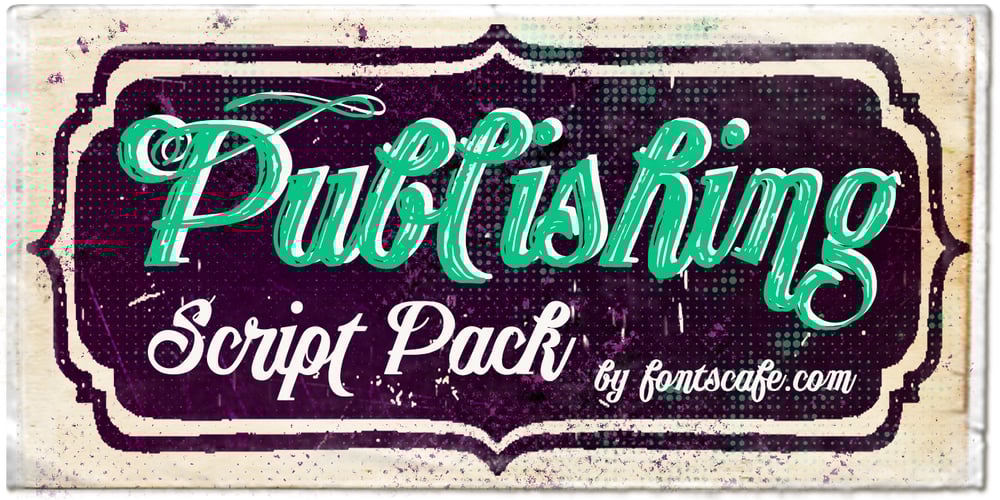
Publishing Script Font Family was designed by published by Fontscafe. Publishing Script contains 2 styles and family package options. “Publishing script pack” combines the sensuality and elegance of Tango Argentino, evocative of special moments, of the new avant-garde font “Publishing Script” with the wildness and daring of “Publishing Draft Script”. Two handmade new script fonts with 105 variations, between alternatives and swashes, plus 32 exclusive stylistic Ligatures that convey unequivocally fluidity and audacity. The distinction and vintage-contemporary approach of “Publishing Script”, from the handmade character of the universe of the Fonts Café creations, which conserves the depth of the vintage/retro style mixed with an avant-garde stylish look. The authenticity and the self-confident approach of the “Publishing Draft Script”, as a tool to rediscover the most intimate human being feelings, which introduces the new Fonts Café concept of Bio-write script! A perfect combination of style, readability and flexibility, a “must have” for your next Publishing projects!